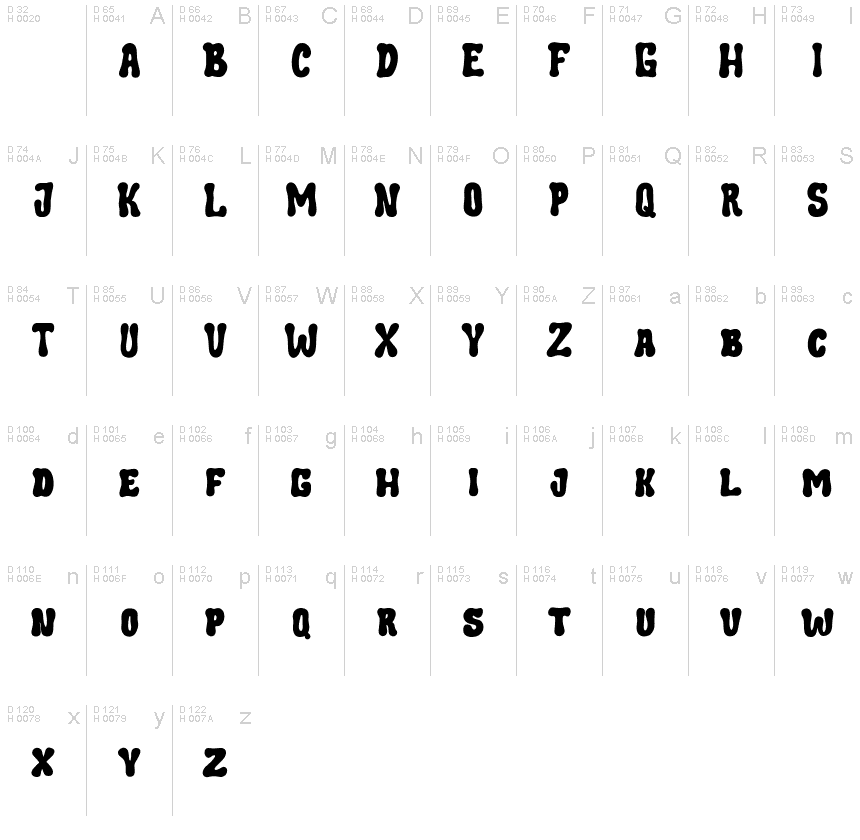
Goskha Free Regular
Goskha, a bold and condensed display font designed by Maulana Creative, brings a groovy style to any project. With its retro-inspired curves and thick strokes, this font is perfect for creating eye-catching headlines, posters, or album covers. Its condensed width allows for maximum impact in limited space. Whether you're designing a vintage-themed website or revamping your brand identity with a cool 70s vibe, Goskha is the ideal choice to add personality and flair to your creative endeavors.